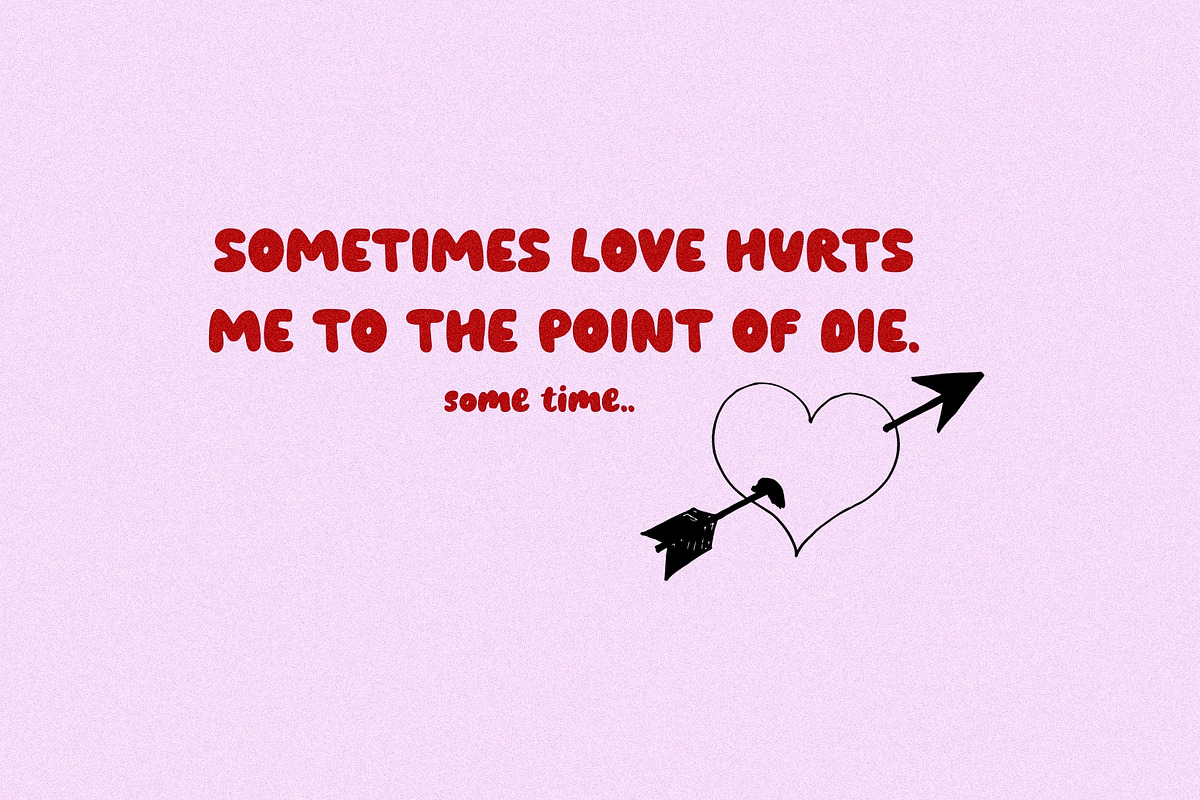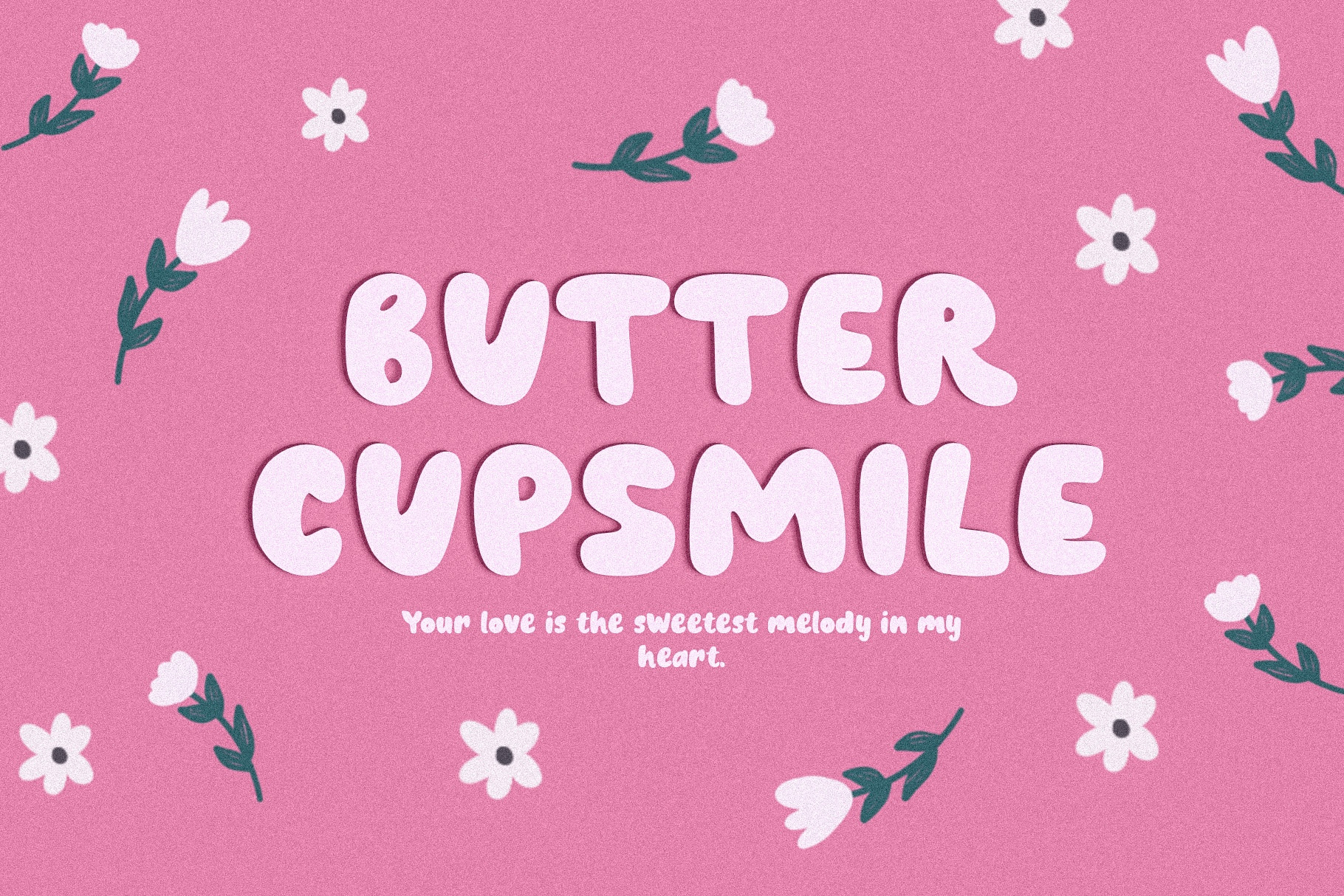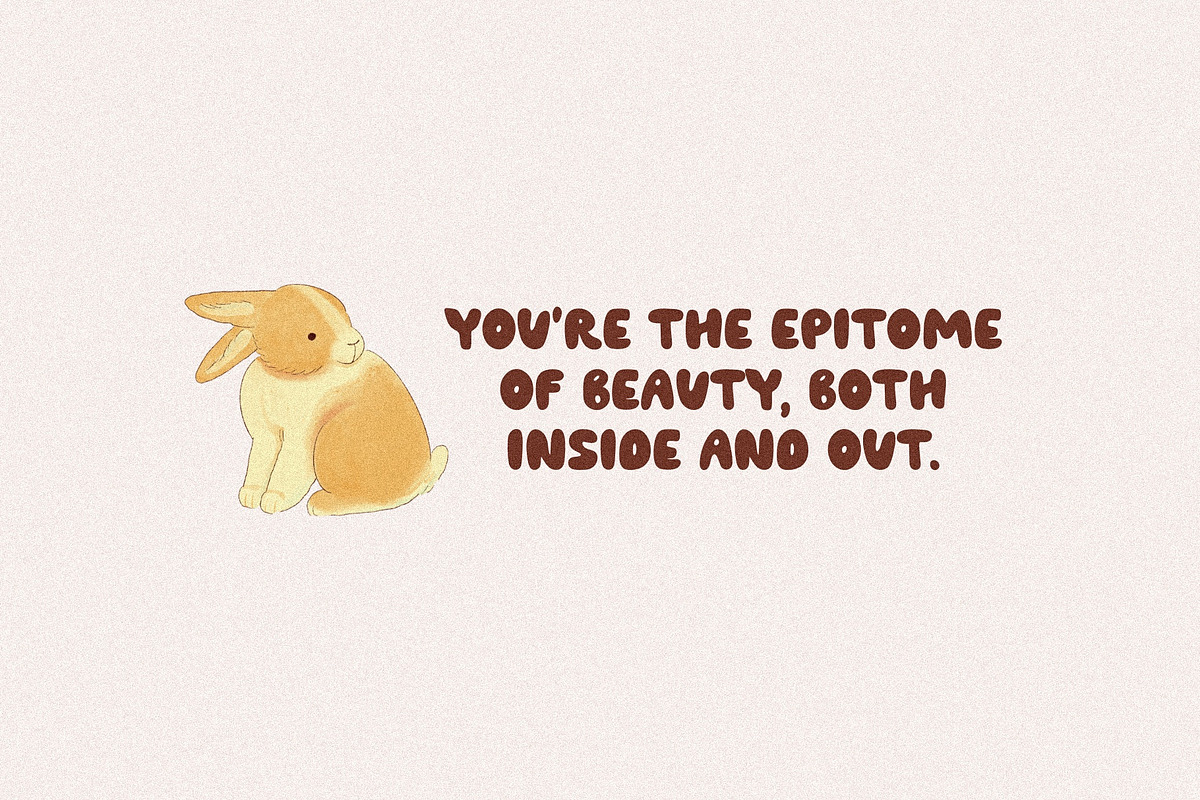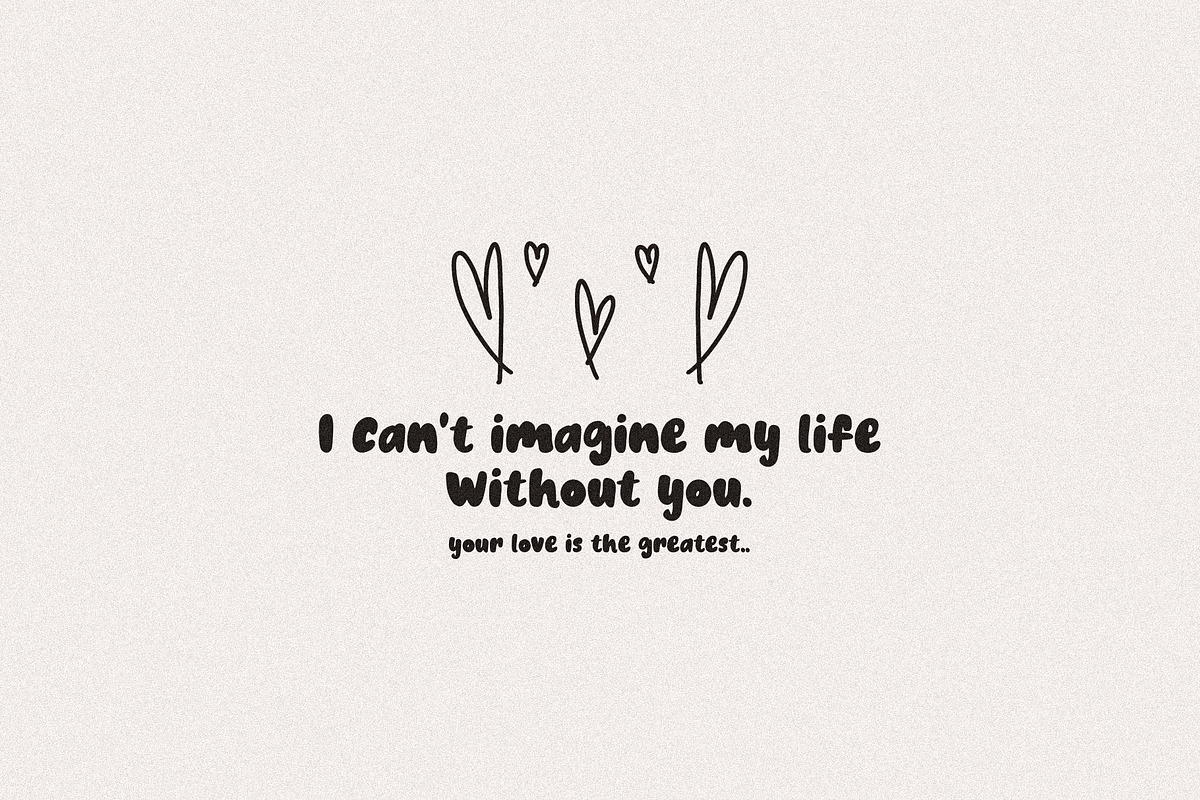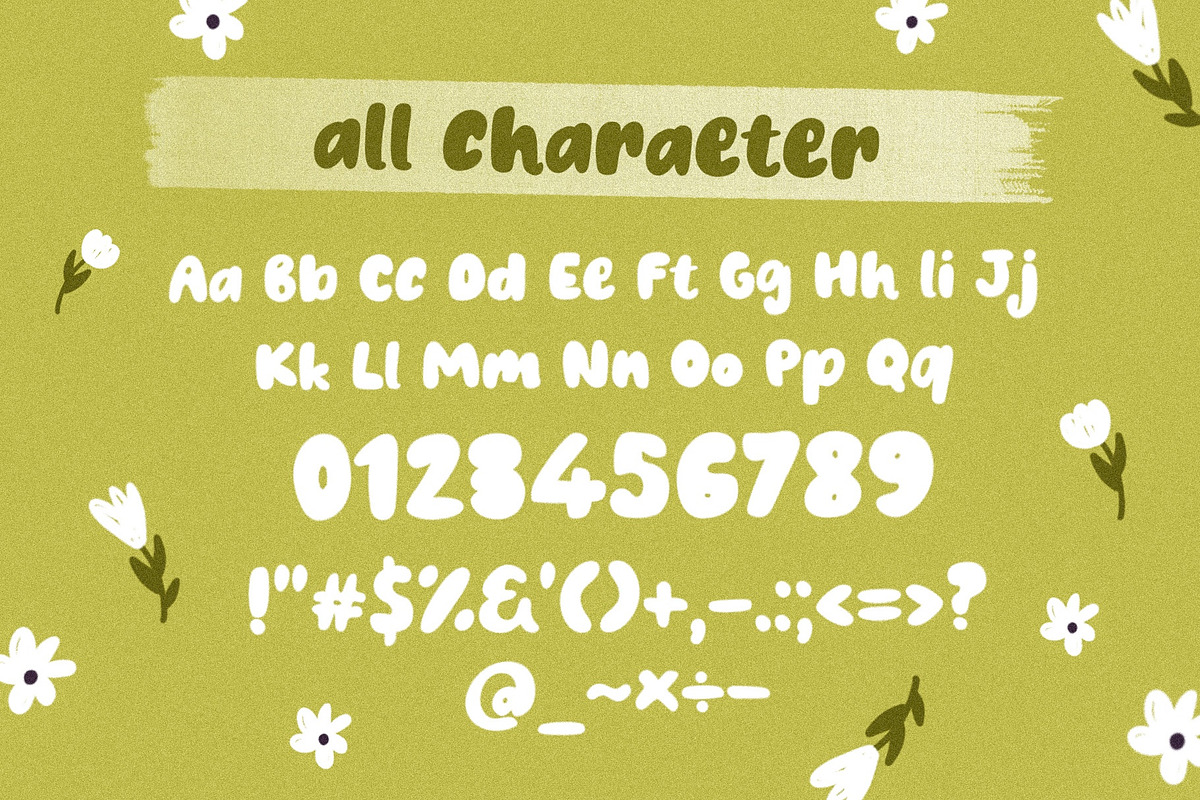
Butter Cupsmile Font
Introducing the delightful and charming ButterCupSmile font! This typeface is like a ray of sunshine, spreading warmth and happiness to your designs. With its playful curves and cheerful letterforms, ButterCupSmile brings a smile to everyone's face. Whether you're designing greeting cards, posters, or social media graphics, this font will capture hearts and spread joy. Its versatility allows it to be used for various design styles, from cute and whimsical to fun and lighthearted. Let your creativity shine and watch your designs come alive with the enchanting ButterCupSmile font.